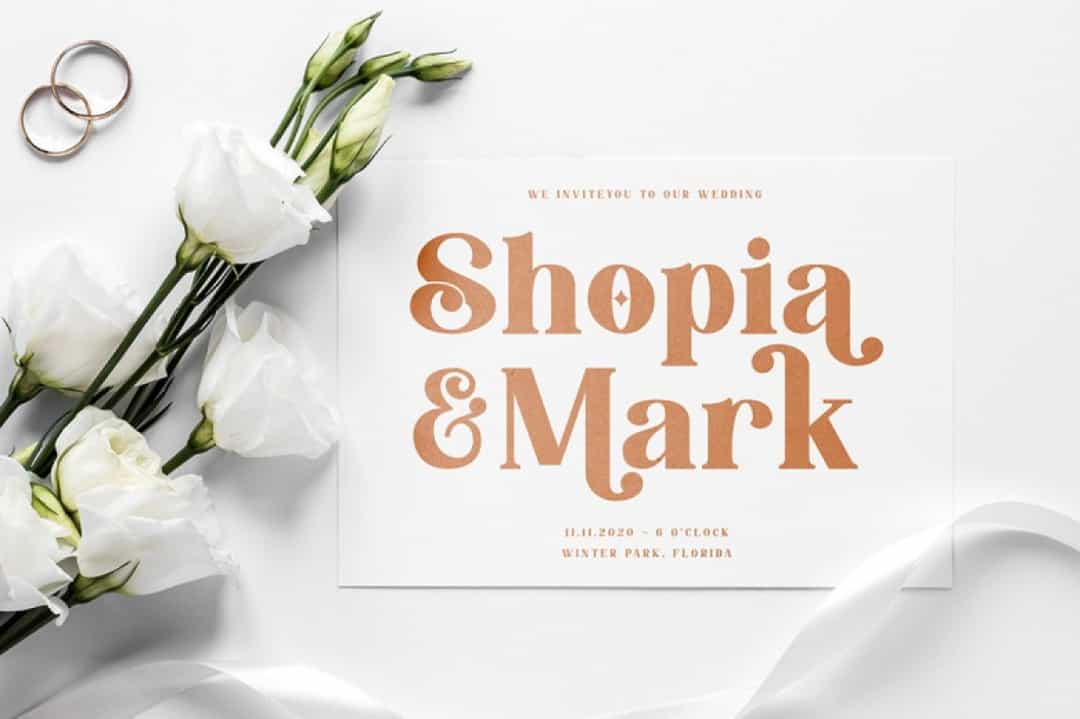
Fredella is an exquisite and timeless serif font with beautiful swashes as well as alternates that will enhance any designs, be it logos. This font or logo is PUA encoded and with this font or logo you can easily access all these wonderful Swashes and Glyphs!